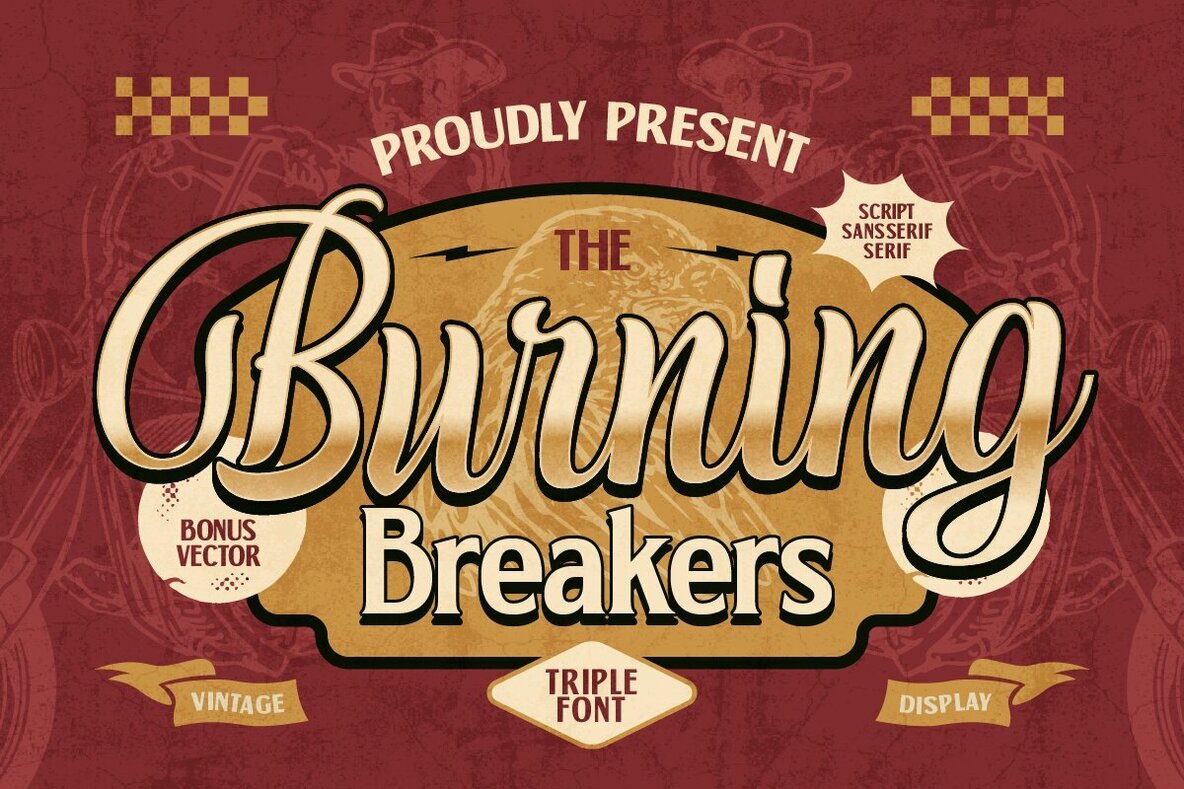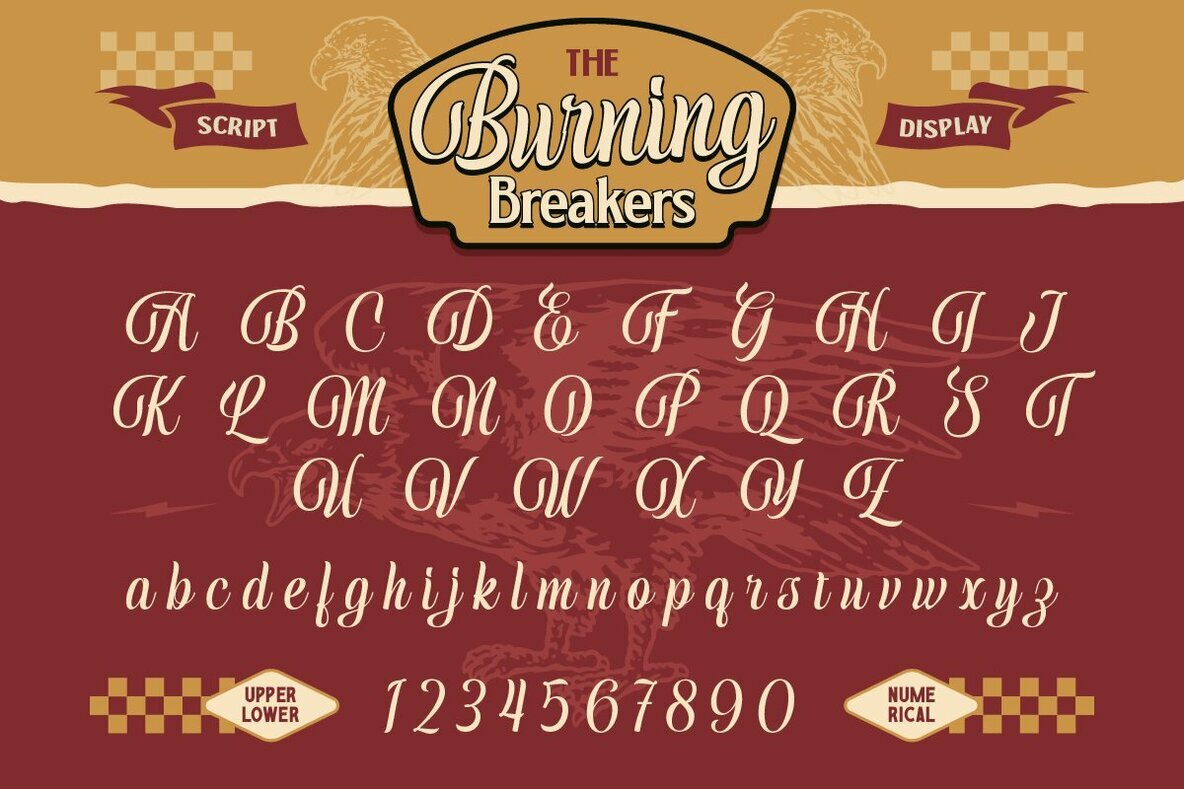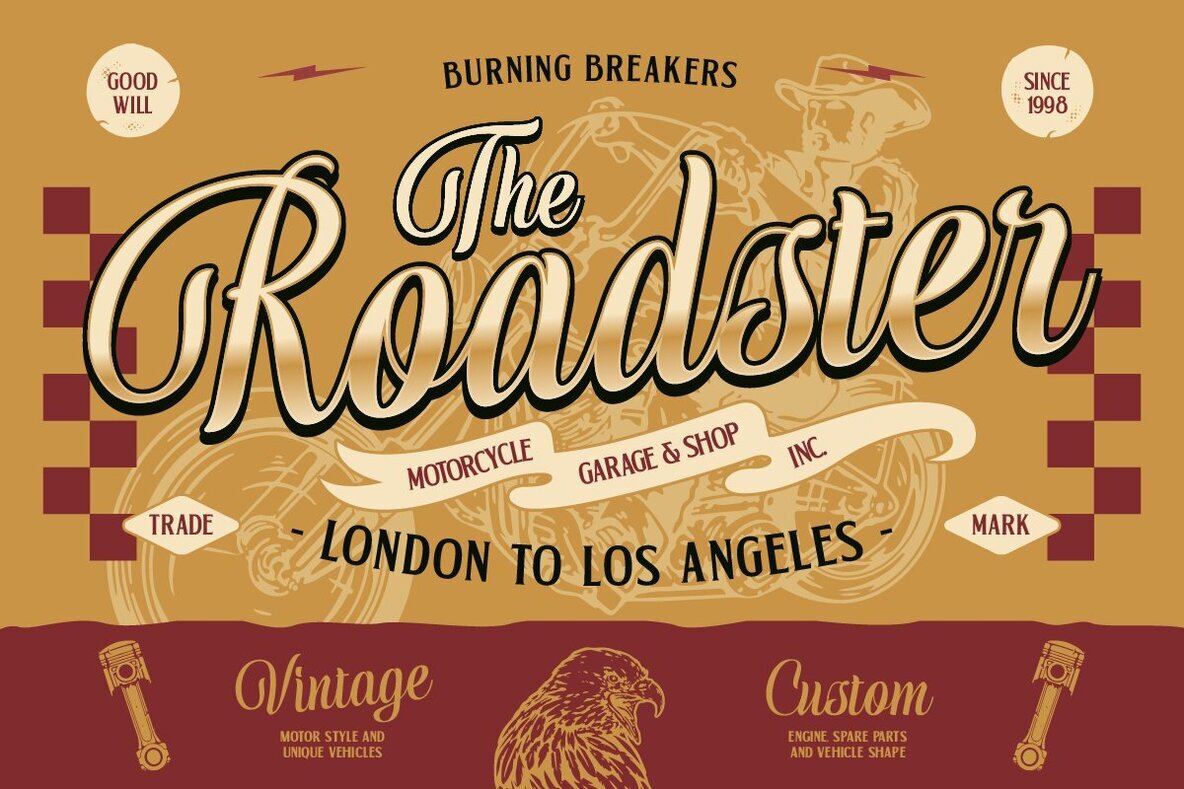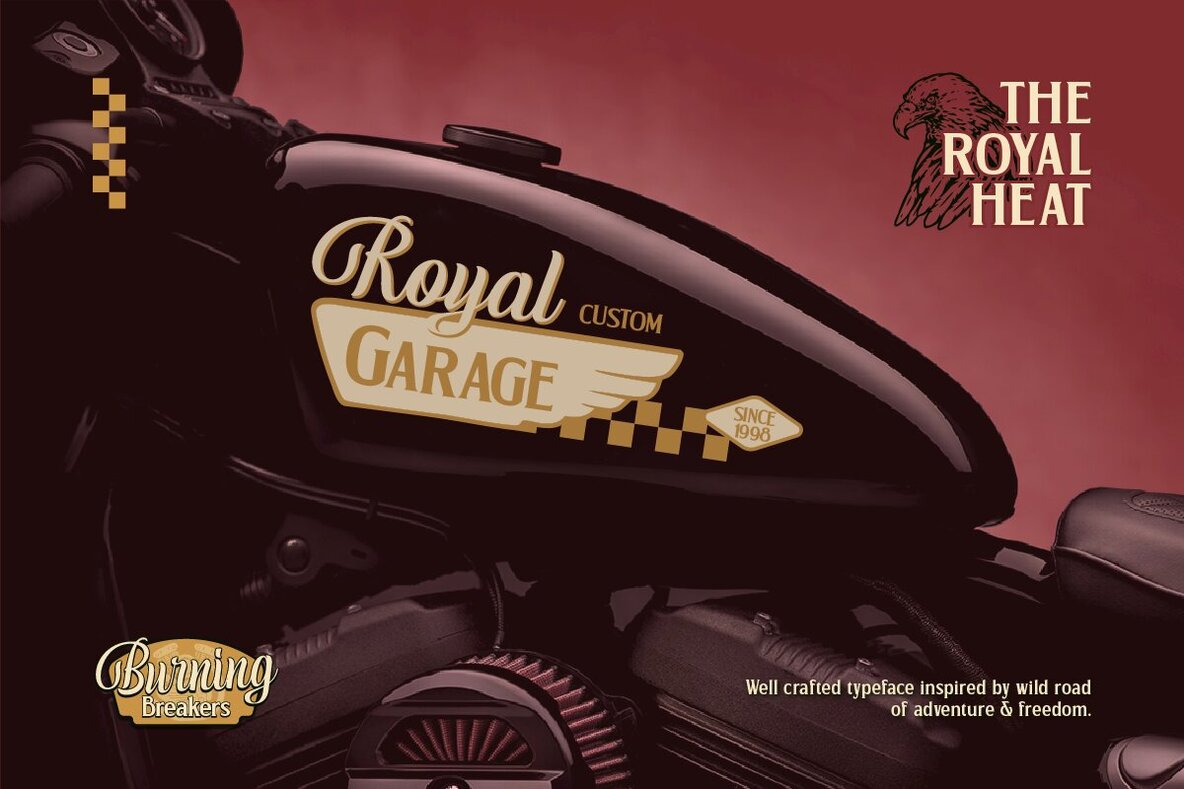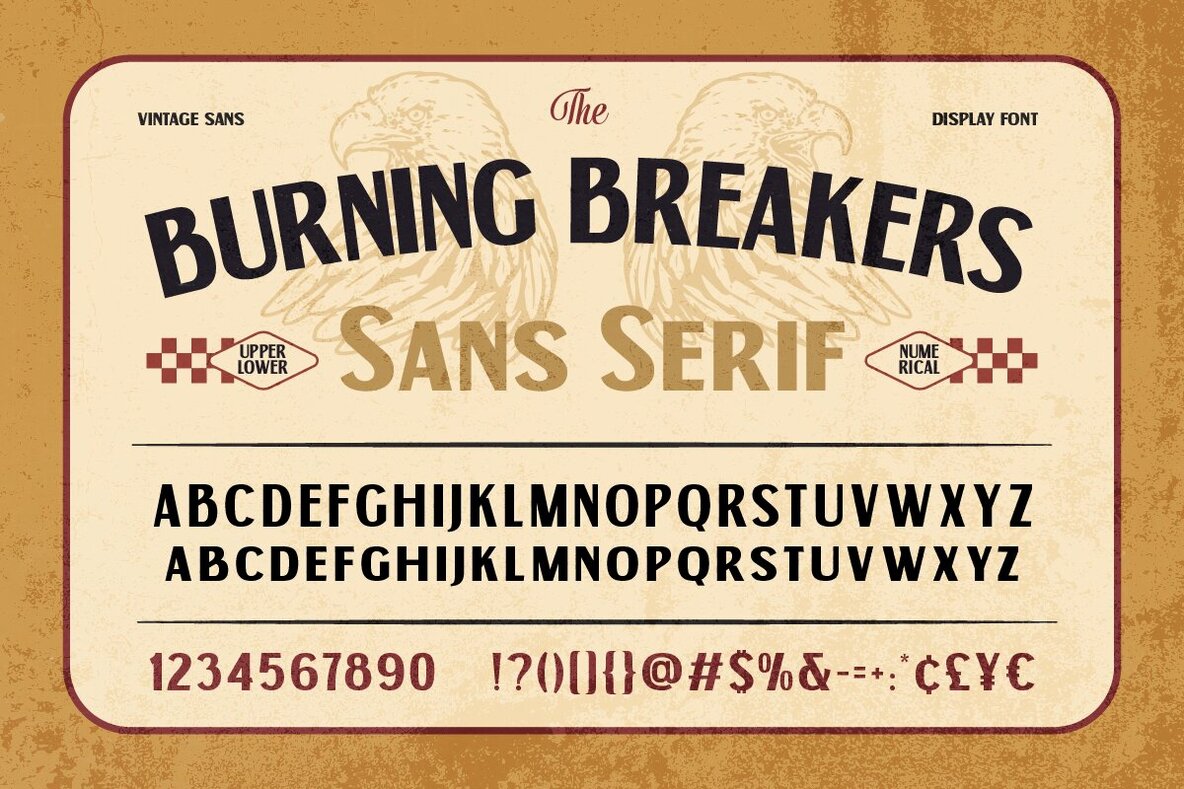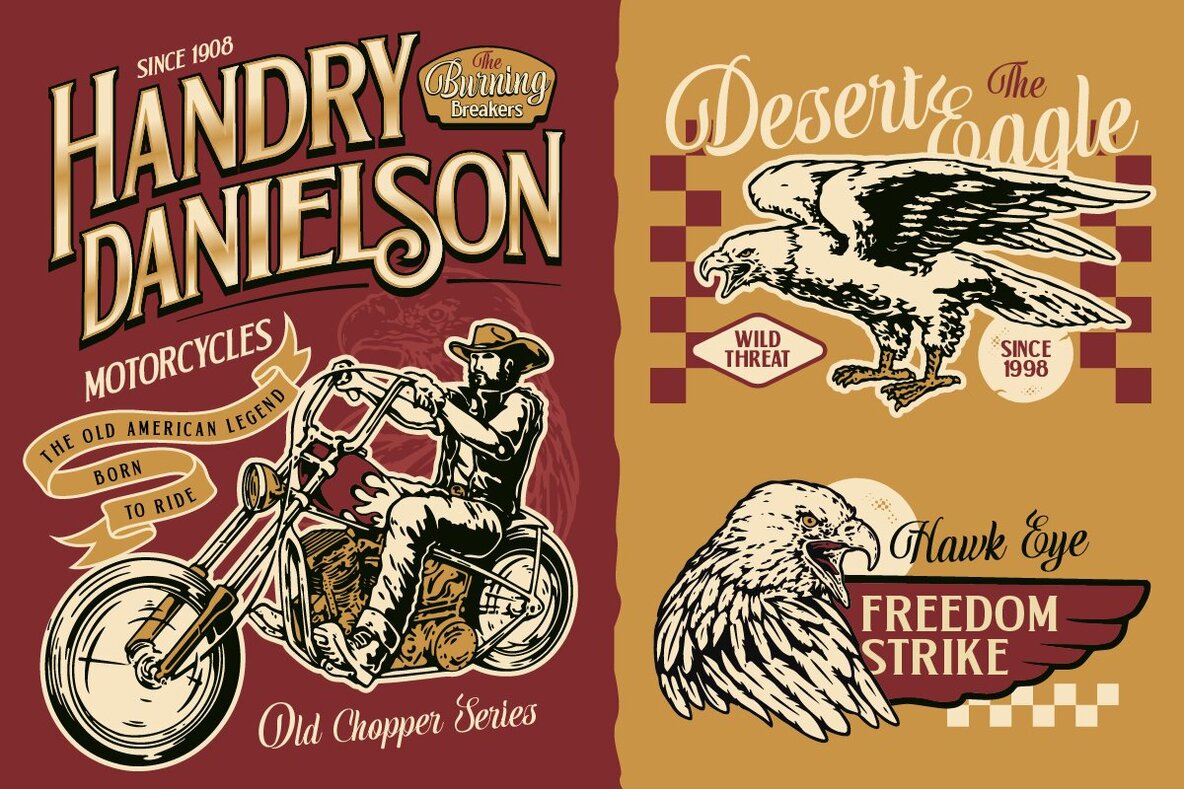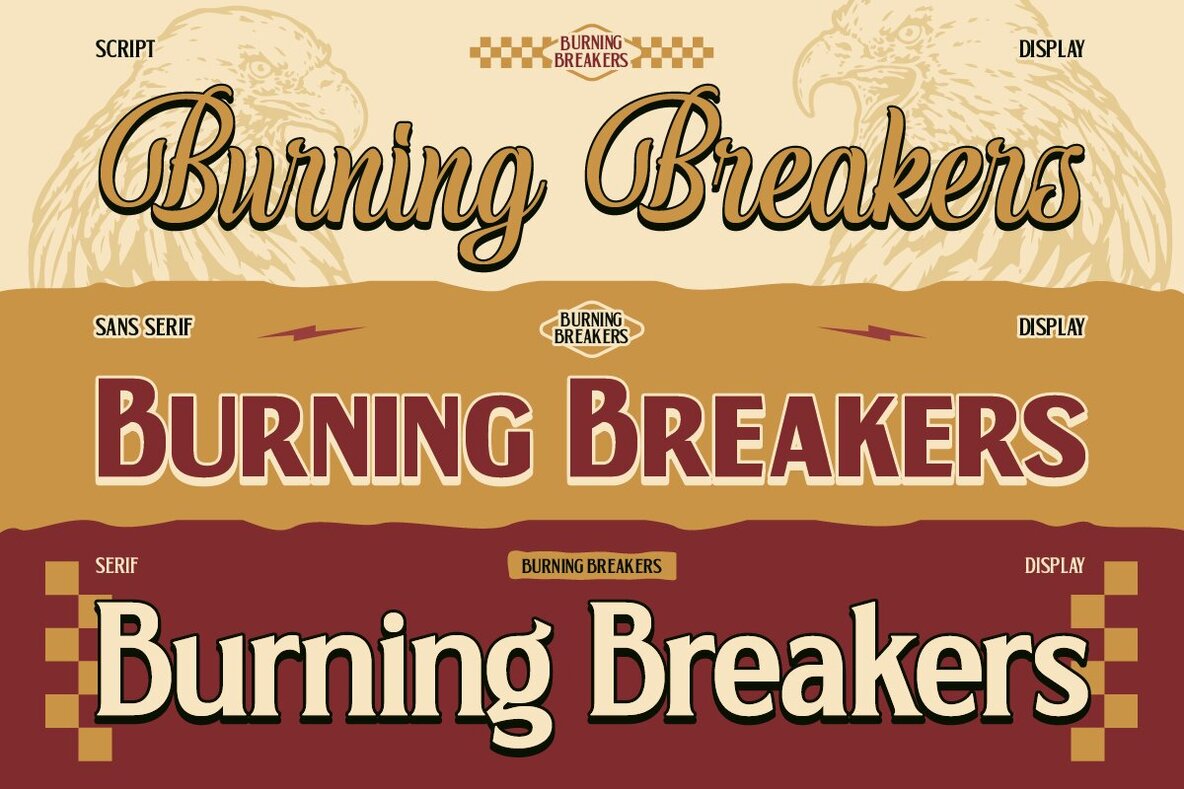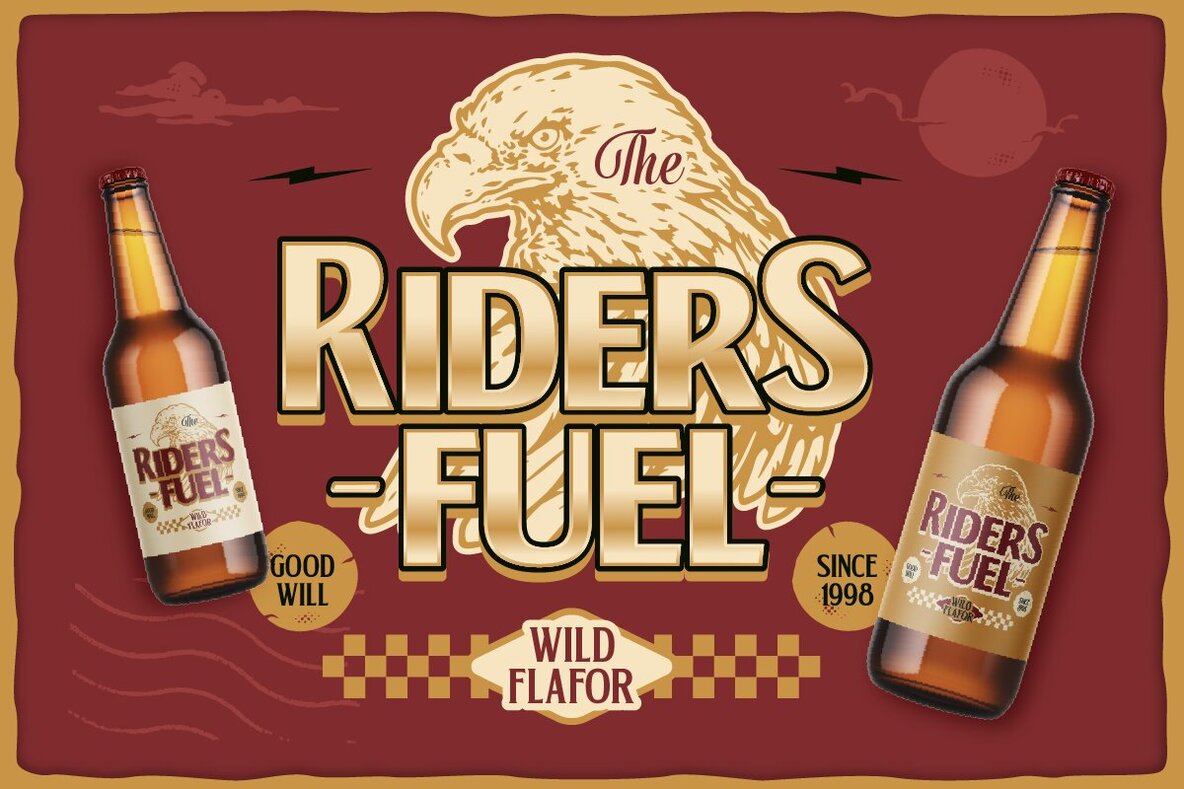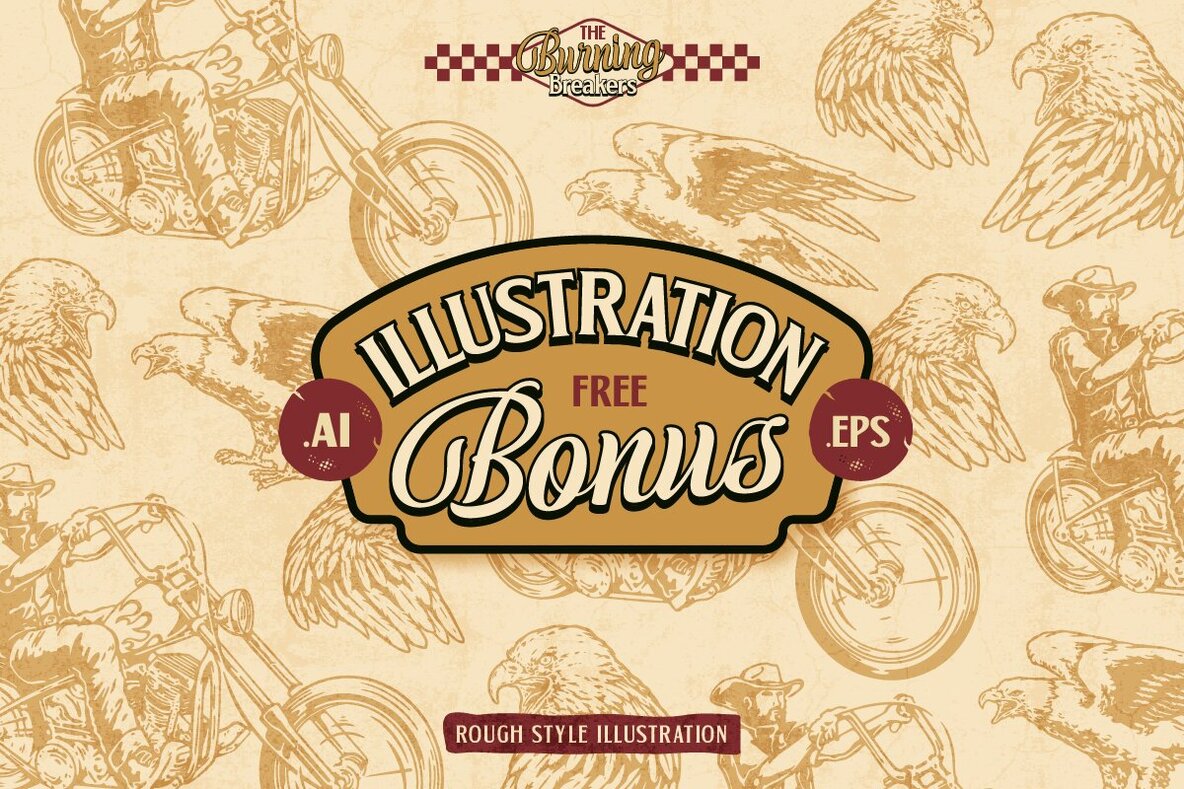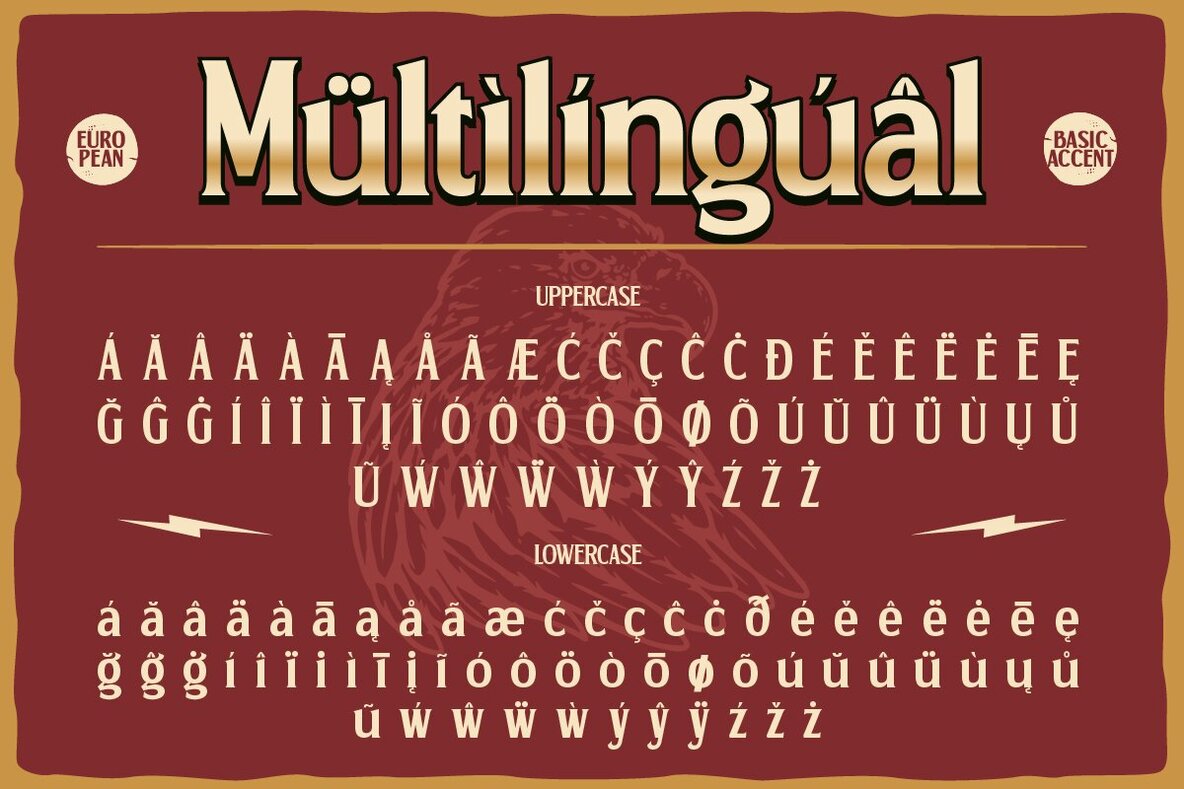
Burning Breakers Font
Burning Breakers Sans Serif
Burning Breakers Script
Burning Breakers Serif
Embark on an adventurous journey with Burning Breakers, a versatile trio of fonts that blend serif, sans serif, and script styles. Drawing inspiration from American motorcycles, Burning Breakers embodies adventure and freedom with its vintage, classic, and masculine aesthetic. Ideal for logos, apparel, and posters, this font set also includes bonus vector illustrations that deepen its ties to motorcycle culture.Burning Breakers